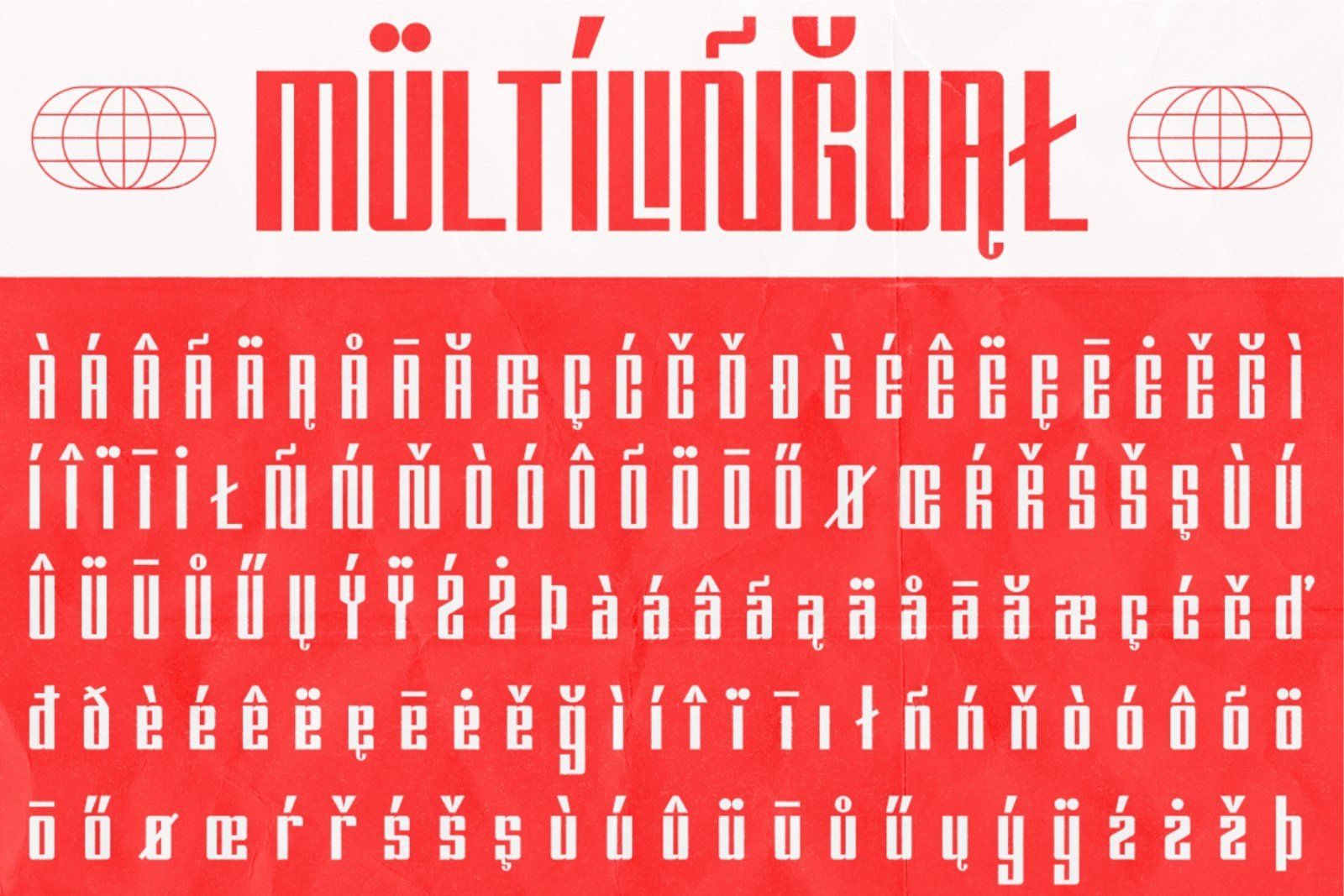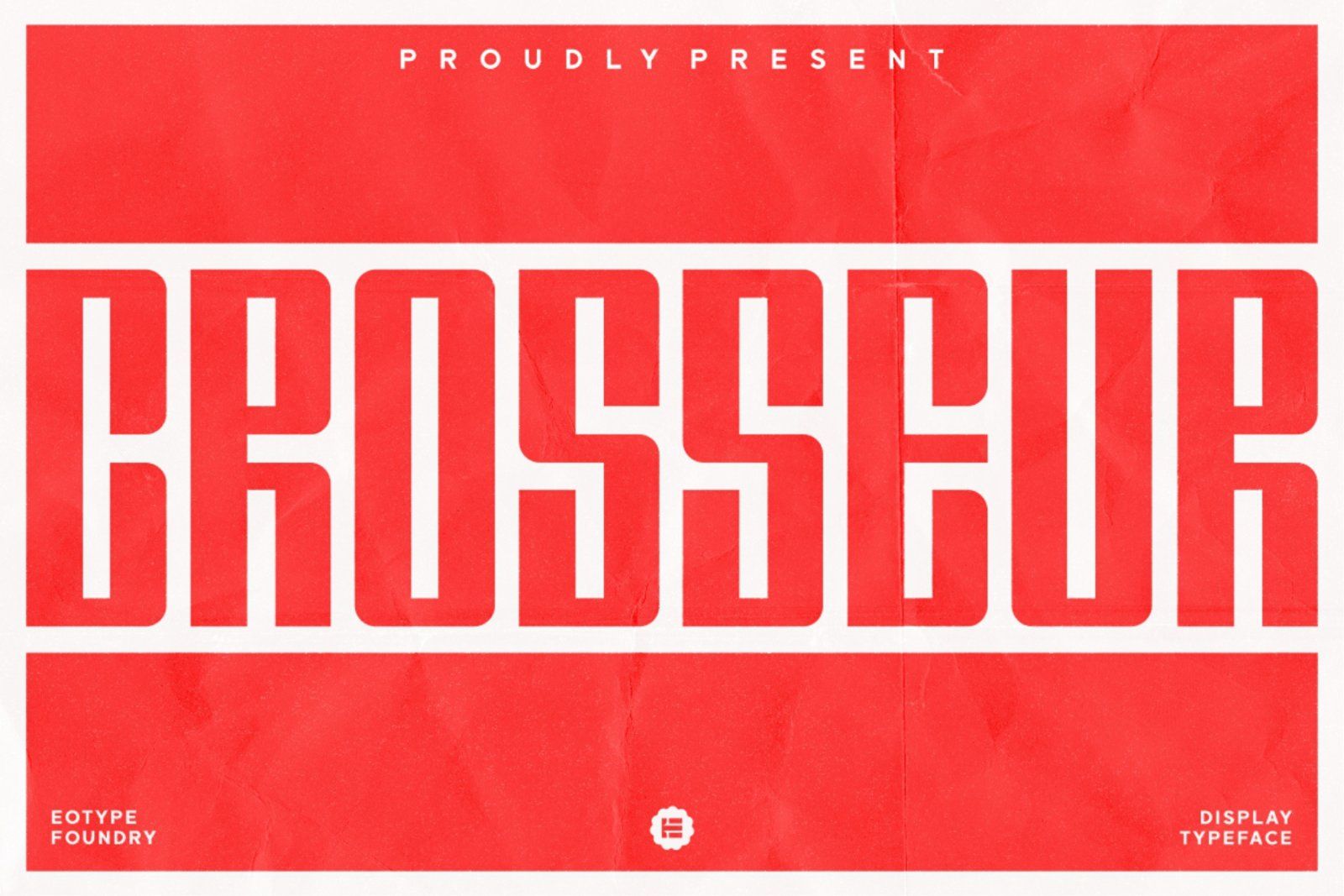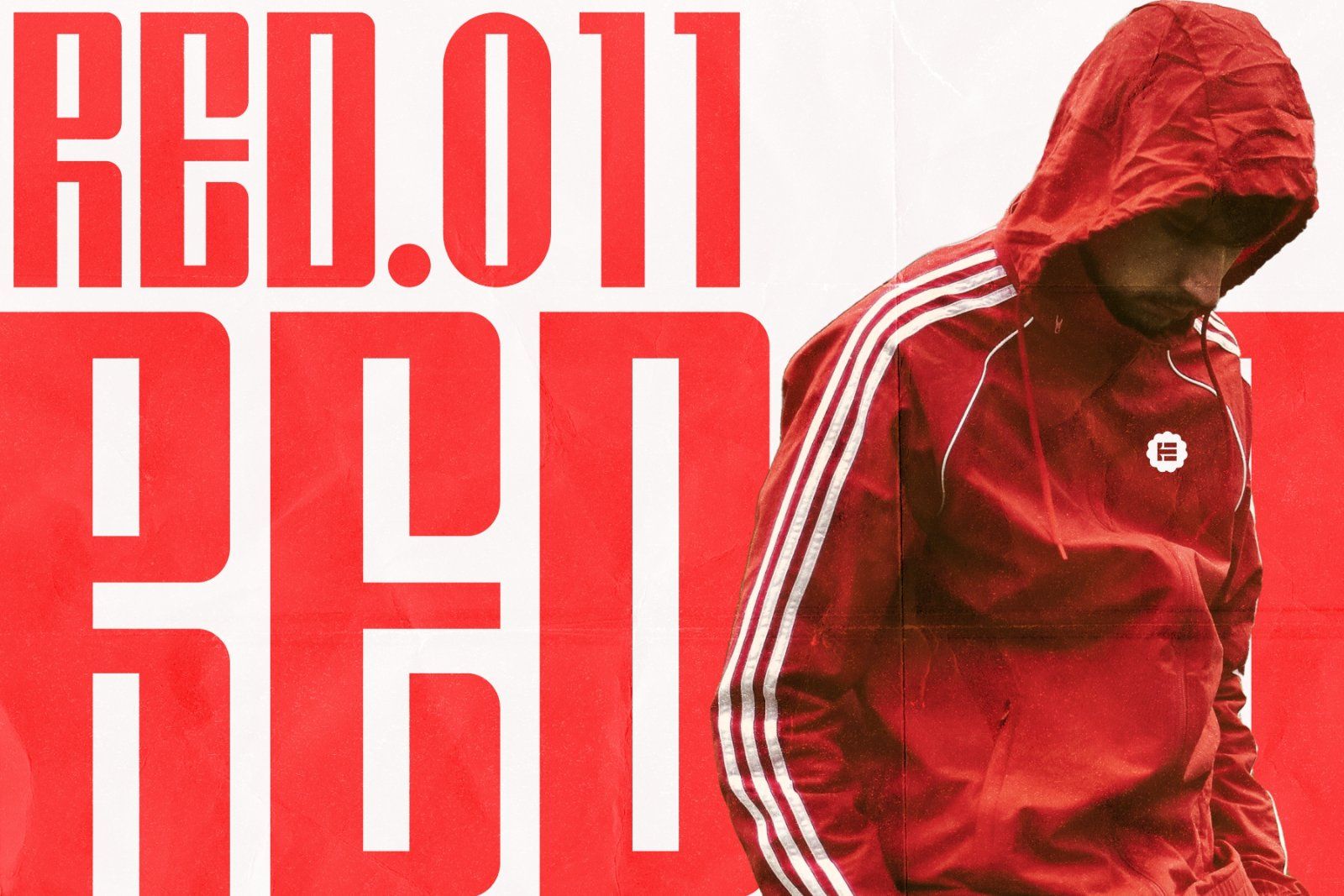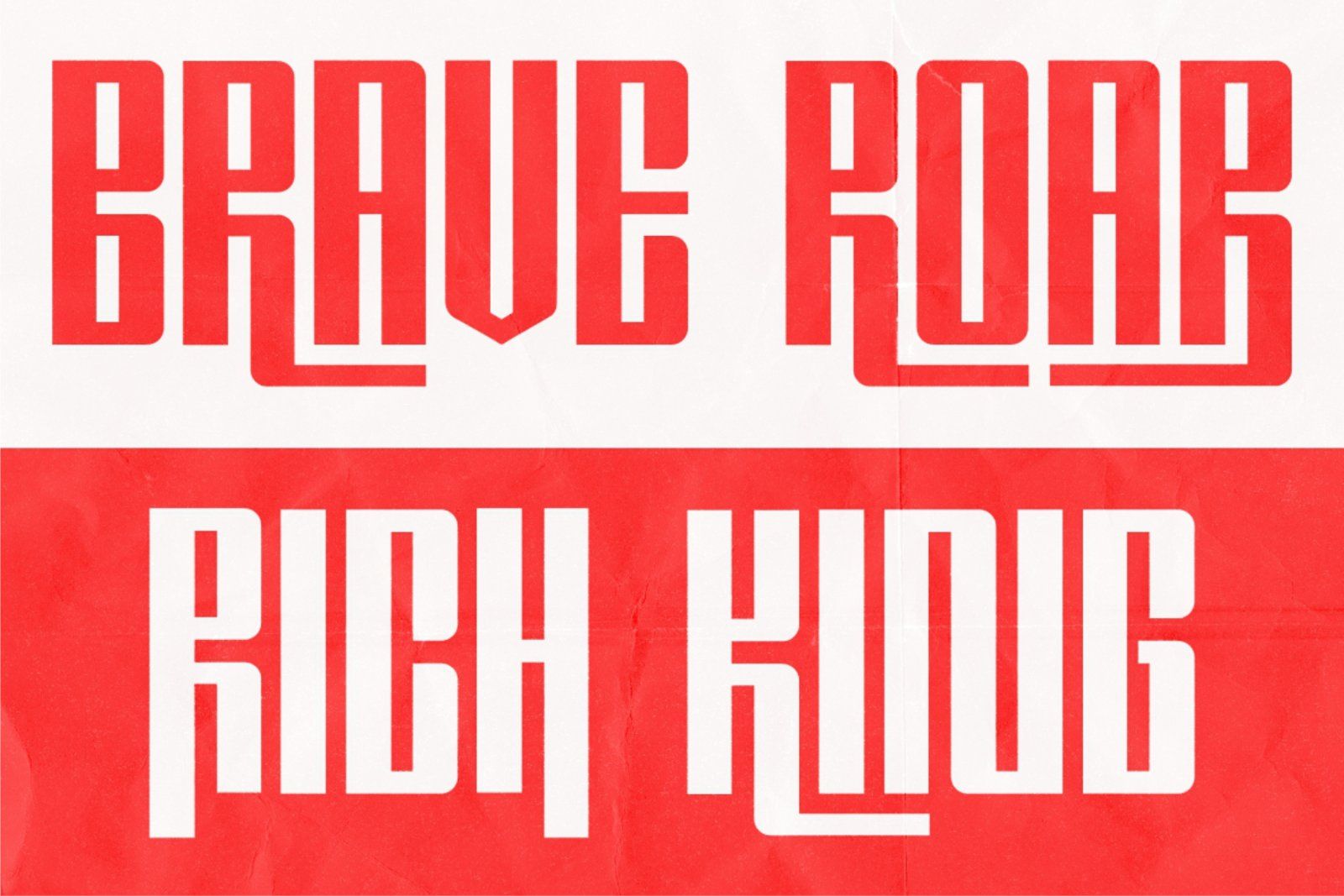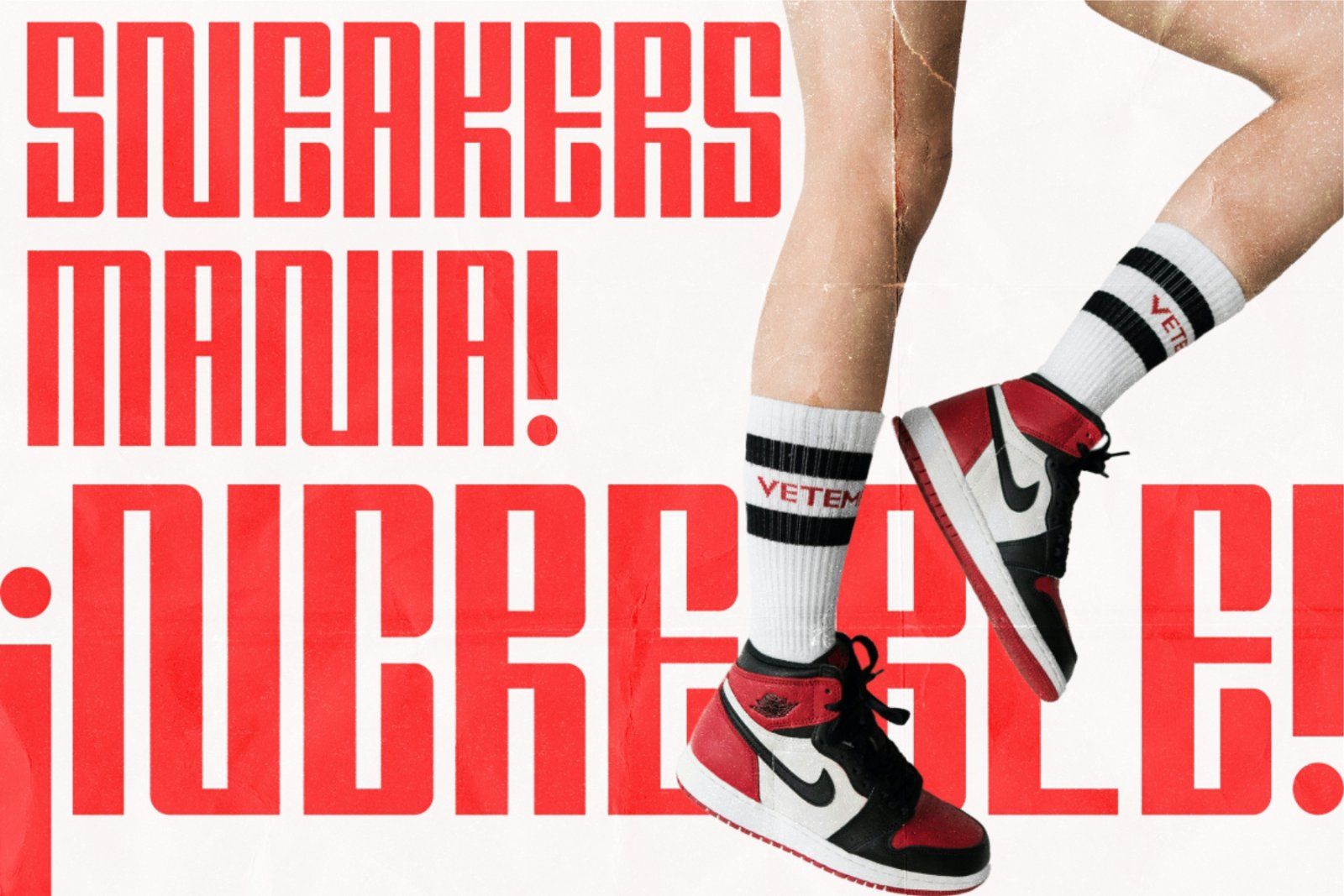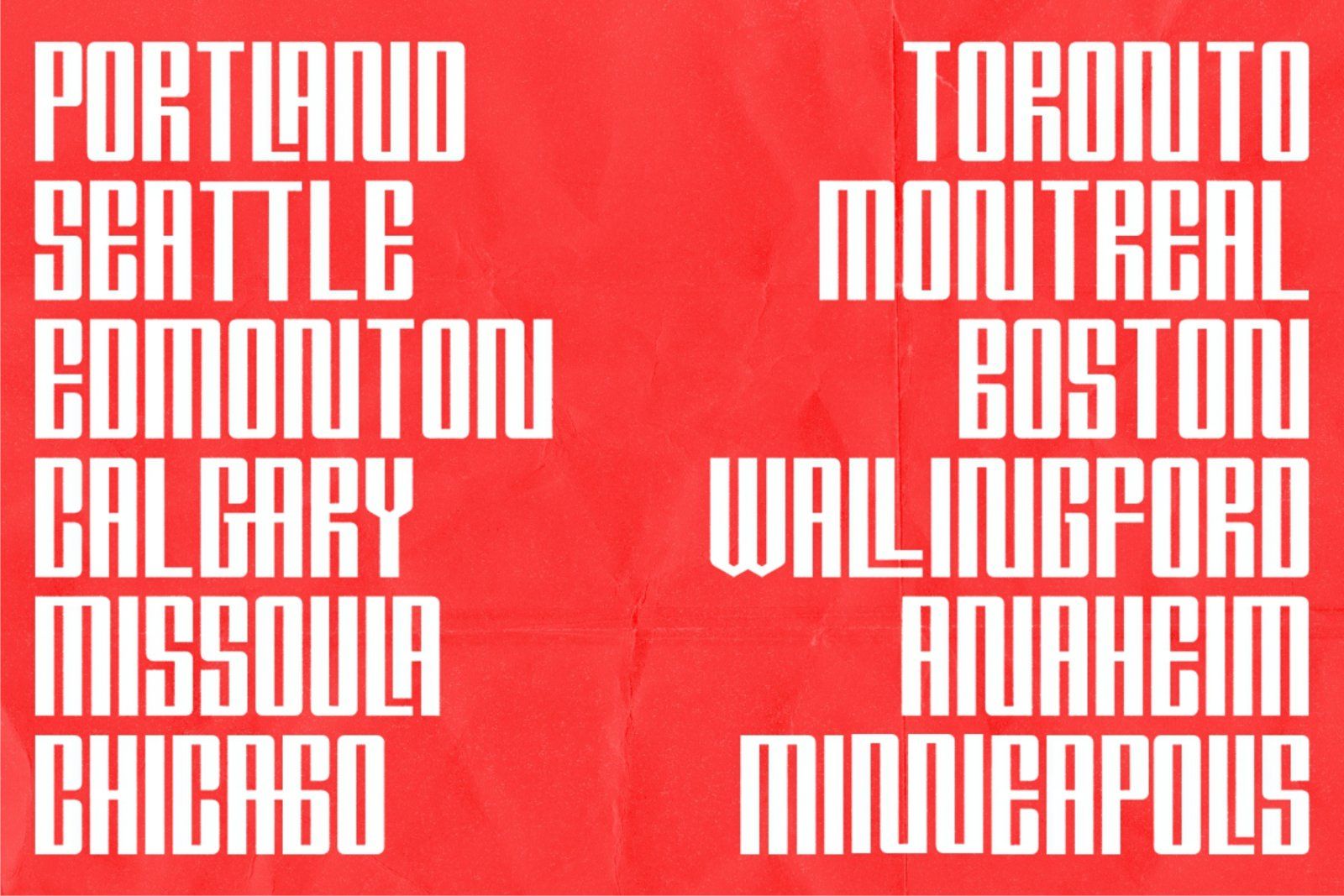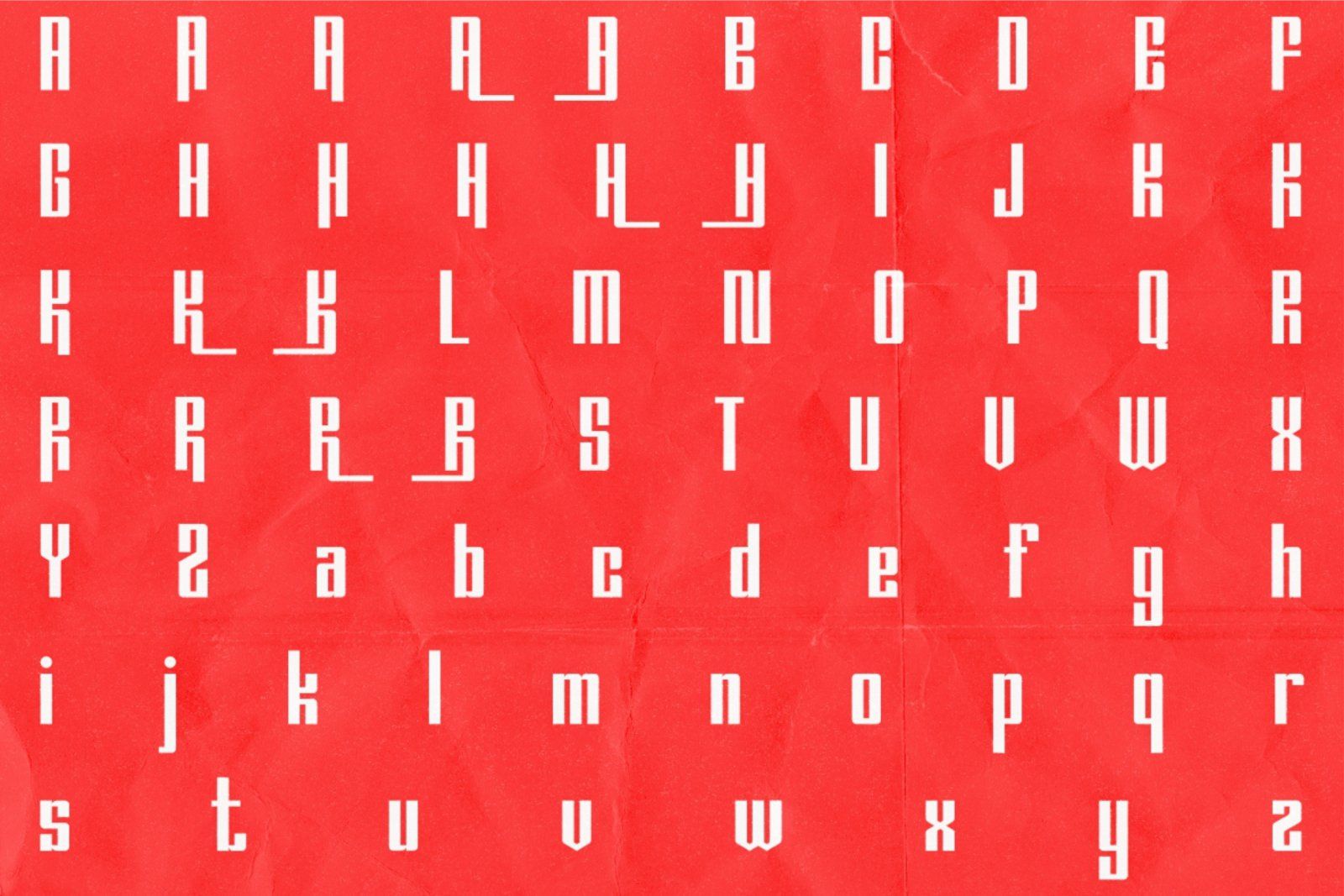
Crosseur the ultimate condensed sans-serif font for modern, creative projects. Designed by Eotype Foundry, this font boasts a range of stylistic alternates, ligatures, and multilingual support. Whether you're looking to create a stunning logotype or add an elegant touch to your magazine layout, Crosseur has you covered. With its bold, unique style, it's the perfect choice for any graphic design project that demands a fresh, contemporary look.